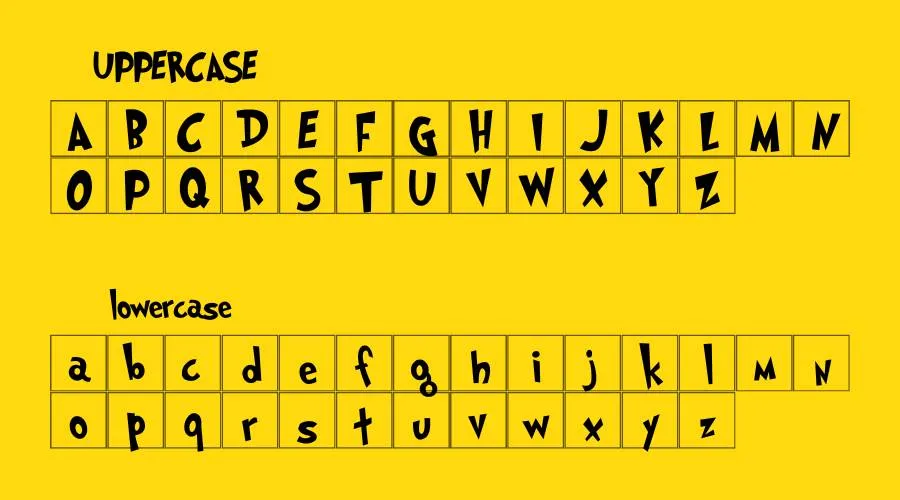
About Dr Seuss Font
The Dr Seuss font is a famous typeface with a bold, and italic texture look. It was designed by a well-known graphic designer named Sean Trowbridge with the category of calligraphy texture family. You may easily get it free from here and utilized it on your both operating systems Windows and Mac without any security issues.
This stunning typeface has amazing pairing quality and can be paired with many other fonts. A similar font to this typeface is Regal Font. It has an online generator tool, this tool will help you to transform all your straightforward textures into a stylish and modern texture look.
When this font was published in the font world, it gained popularity in a very short time, because it depends on the stylish and unique texture of alphabet characters such as uppercase letters, numerals, digits, symbols, and punctuation.